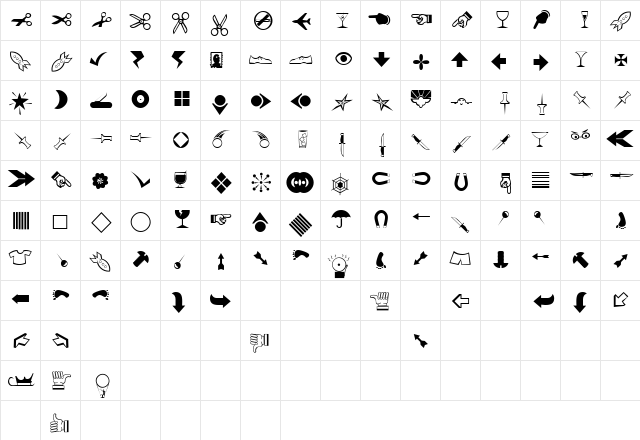
JournalDingbatsNineSSi Regular Free Font
JournalDingbatsNineSSi Regular
Complete JournalDingbatsNineSSi Regular glyph index. Displaying only characters natively supported by JournalDingbatsNineSSi Regular font.
Design Context for JournalDingbatsNineSSi
JournalDingbatsNineSSi is a composed and adaptable typeface that performs quietly and consistently across a wide range of design contexts.